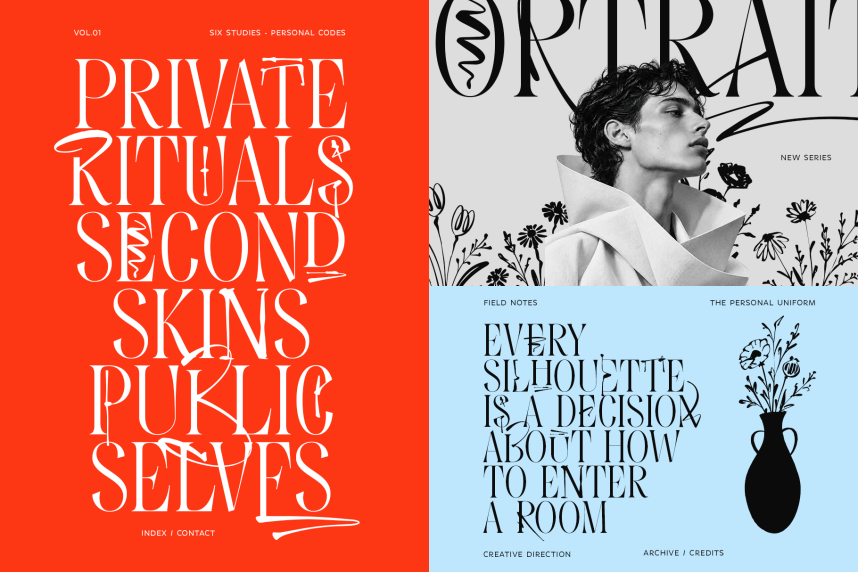
Everline Font is an expressive luxury serif font family created for designers who want elegant typography with individuality.
Its tall proportions, dramatic contrast and sculptural details make Everline ideal for fashion branding, beauty packaging, editorial design, logos, magazines, wedding stationery and sophisticated social media graphics.
Instead of requiring you to constantly search through alternate glyphs, Everline includes 40 carefully prepared styles as individual fonts. Simply choose a style from your font menu and start designing.
For even more creative freedom, the Master font includes expressive alternate characters so you can build your own combinations.